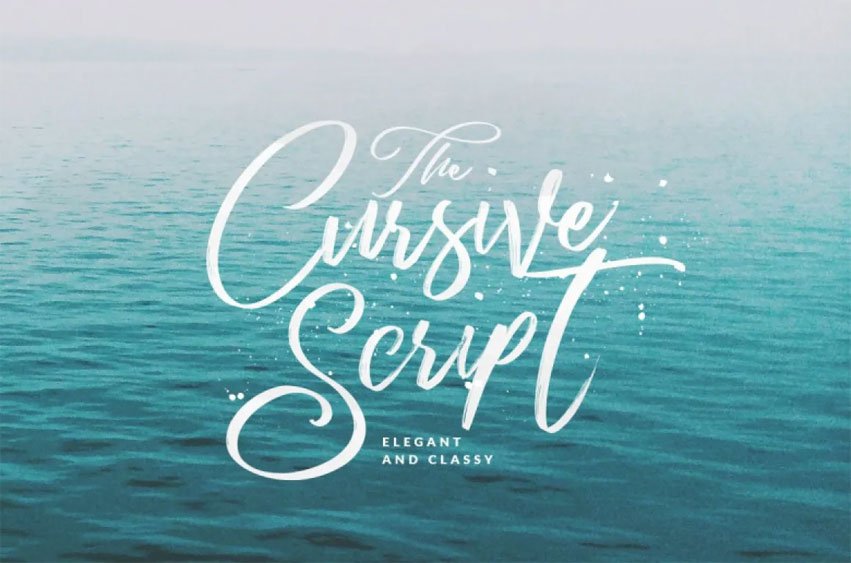
Cursive Script Font dubbed Cursive font was designed by Dirtyline Studio and comes with a dry brush imperfection and bouncy base making it a perfect free marker fonts option.
Coming with extra swash options it is ideal for logos, handwritten quotes, product packing headings/headers/posters/merchandise, social media/greeting cards.